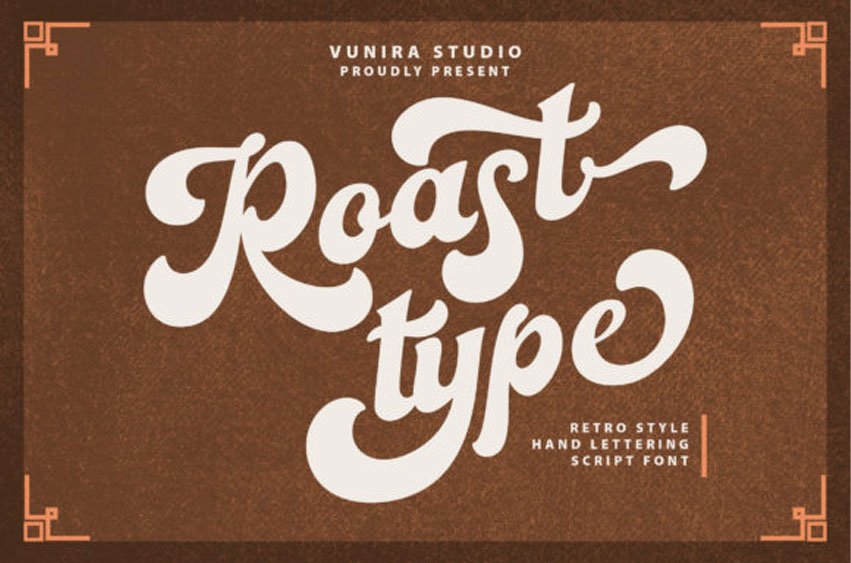
Roast Type Font is a stunning handwritten font, designed with an incredibly flowing and relaxed feel. Its versatile style makes it fit to a a wide pool of contexts.
This font is PUA encoded which means you can access all of the glyphs and swashes with ease! It features a varying baseline, smooth lines, gorgeous glyphs and stunning alternates.